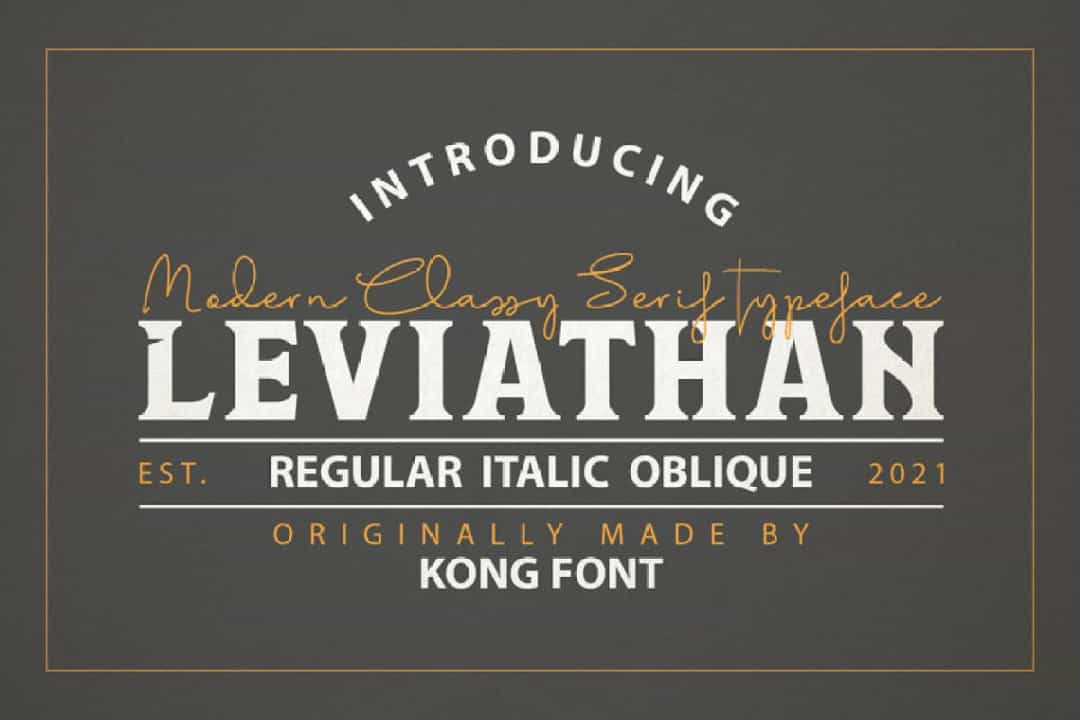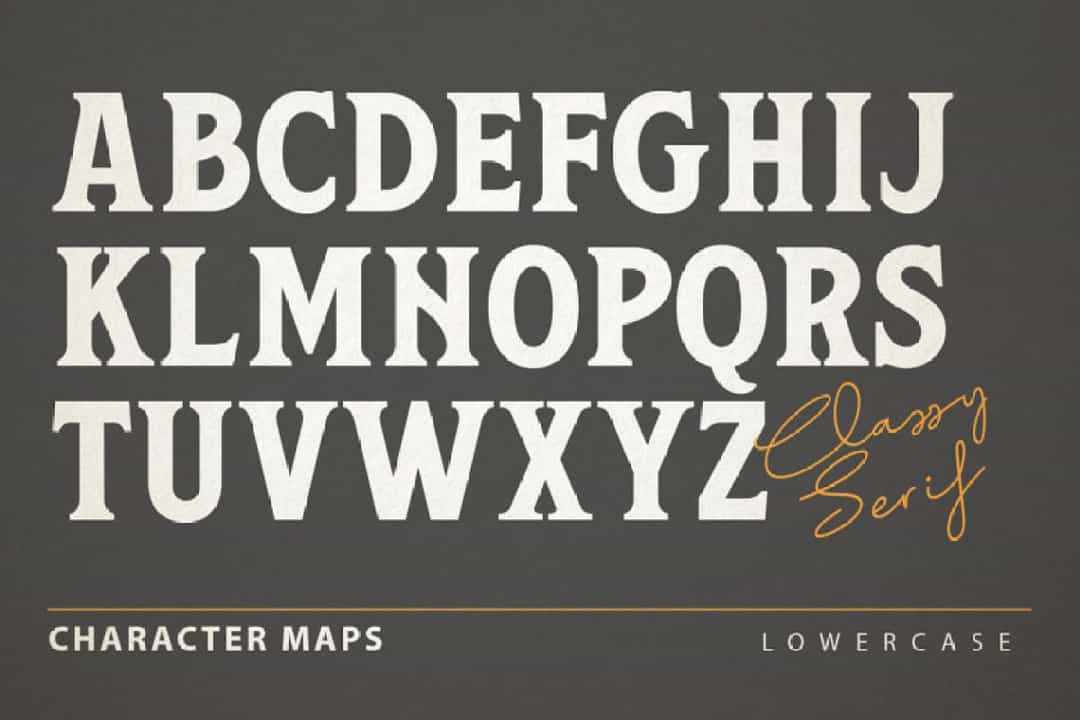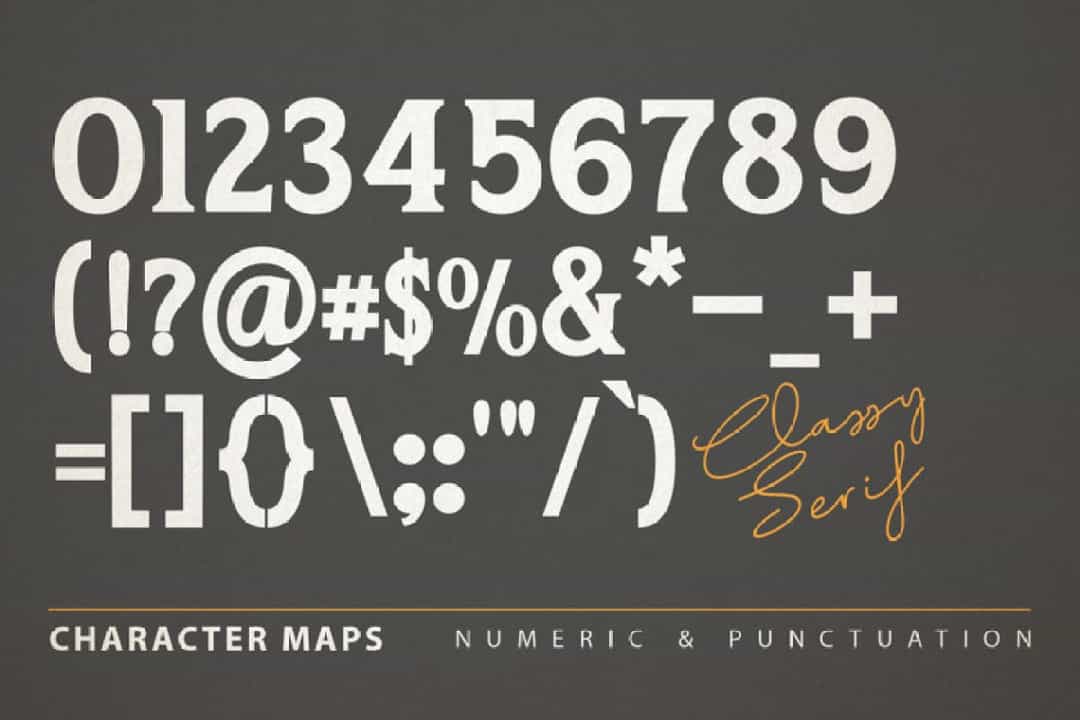
Leviathan Display Font is our newest offering! Perfect for creating charming invitations to weddings, birthdays or any special event. A collection of numbers and letters suitable for use in projects. Great as Logotypes, Branding Designs, Digital Lettering Arts for T-Shirt/Apparel designs as well as posters/magazines/signs as well as other branding projects!